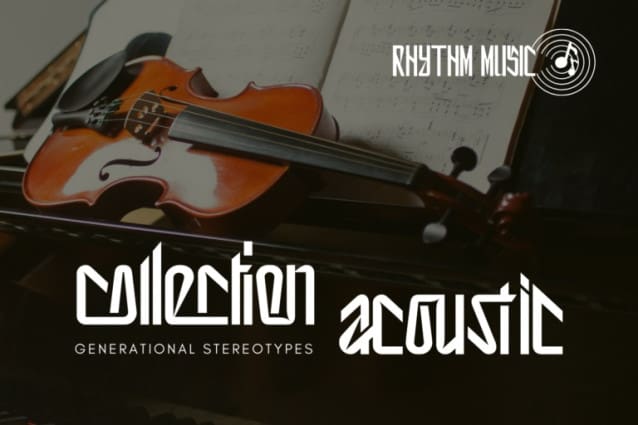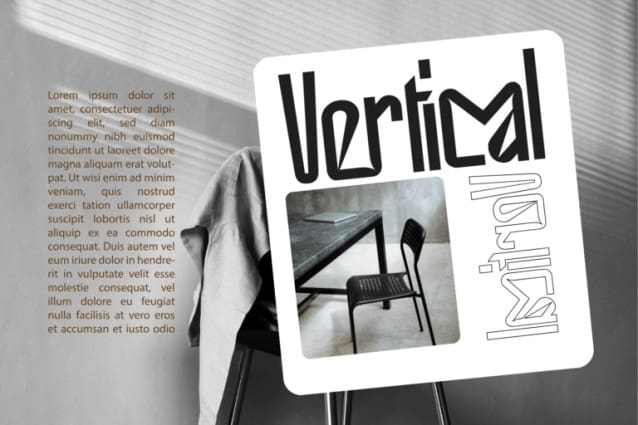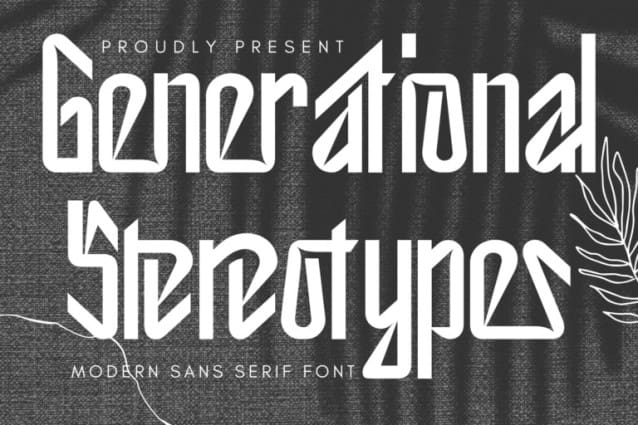
Generational Stereotypes Font
Generational Stereotypes Font is an extra condensed grotesque, made with its own unique character and form of typeface. A typeface inspired by the visuals of iconic sci-fi movies and TV shows. Its ultra-condensed style is perfect for fitting bold messages into tight spaces. From posters to websites, it’s the ideal choice for making your project stand out in a futuristic world. It’s a massive font that will grab the attention.
Generational Stereotypes was built with OpenType features and includes 100 ligatures, alternate, numbers, punctuation, and it also supports other languages.